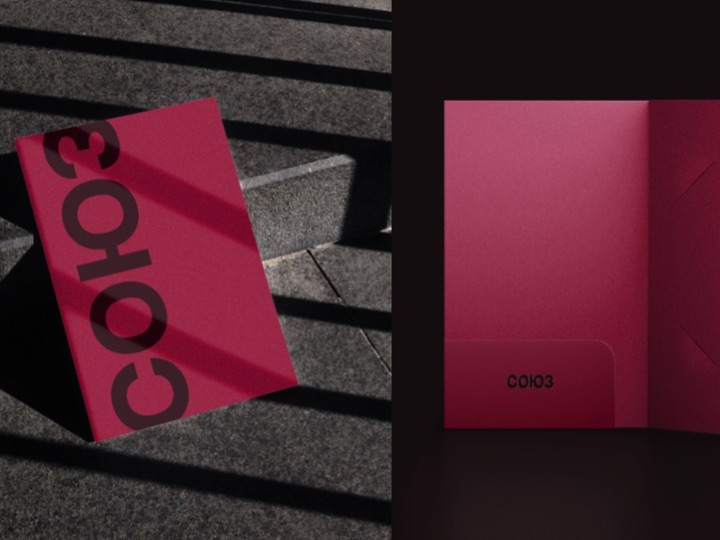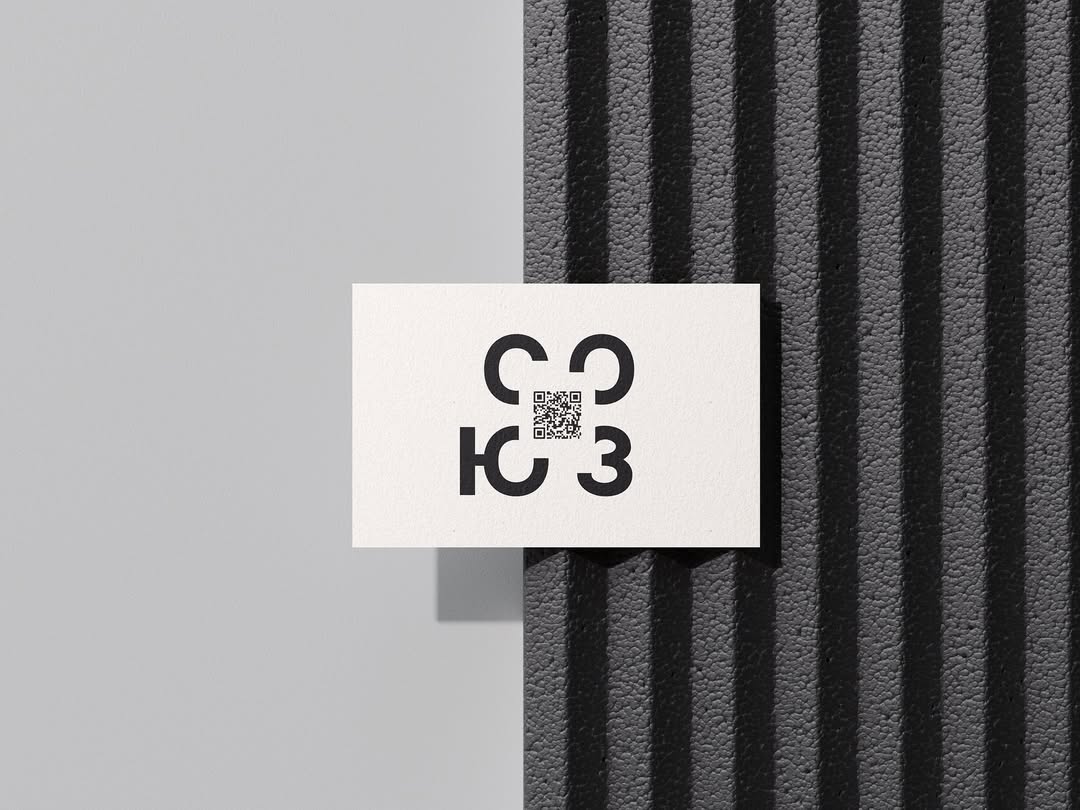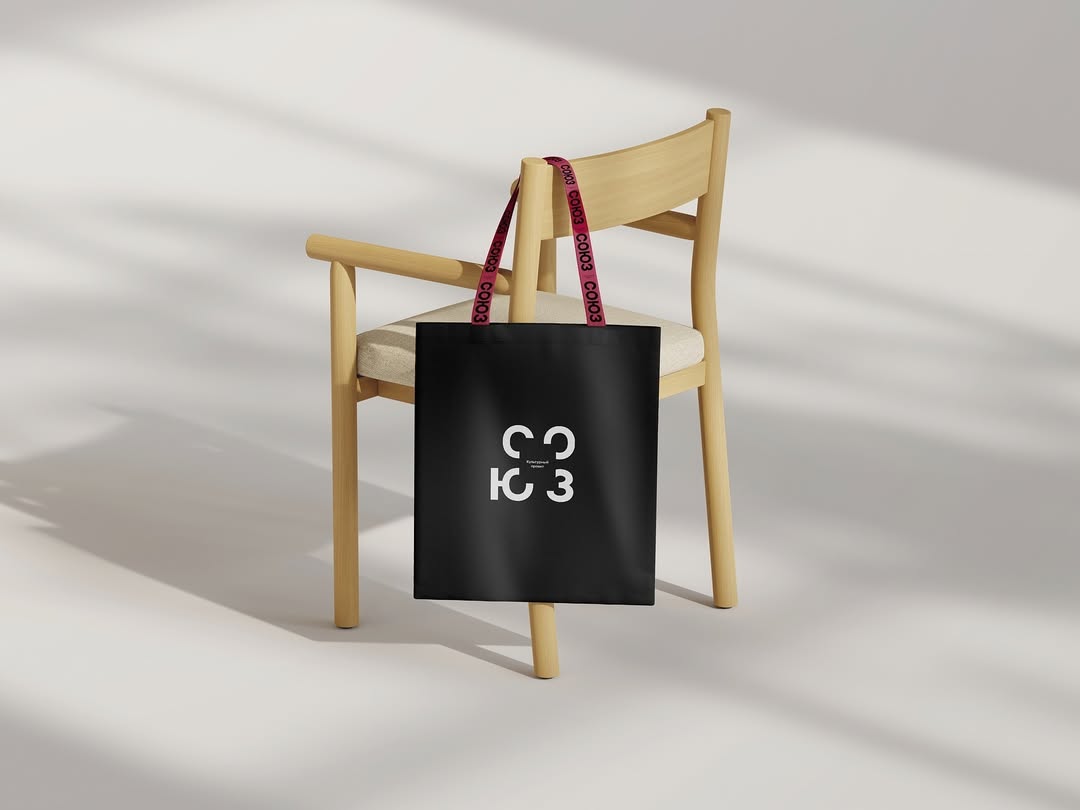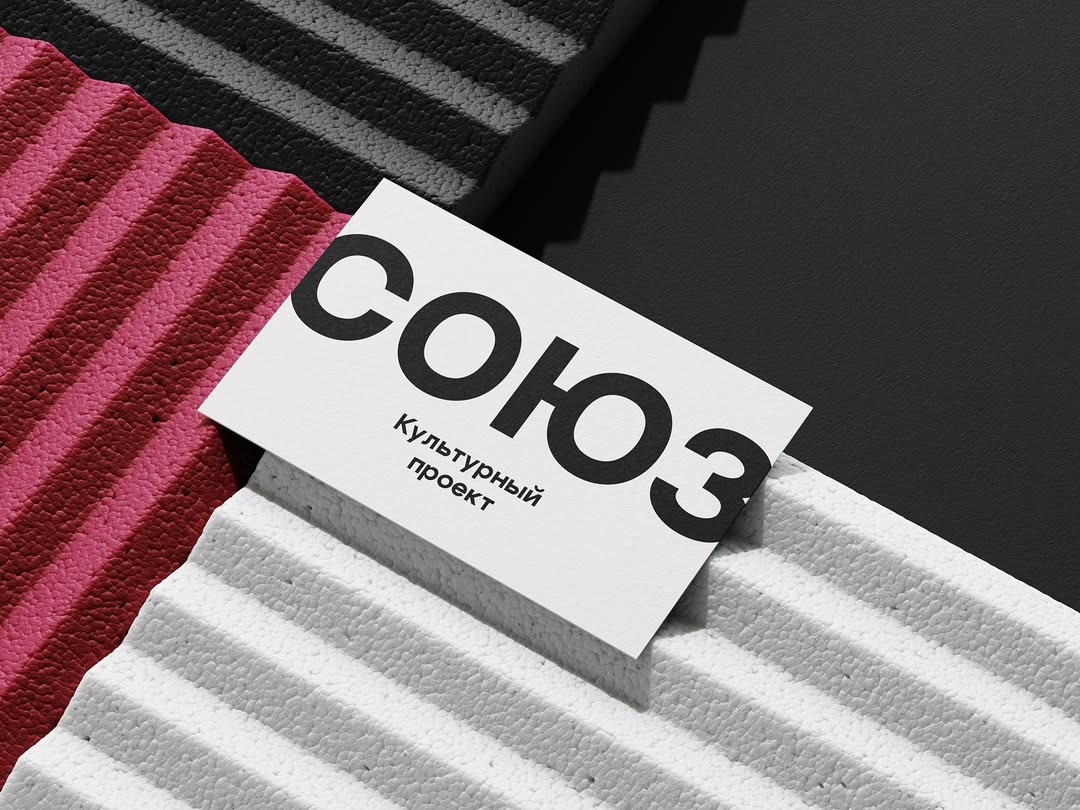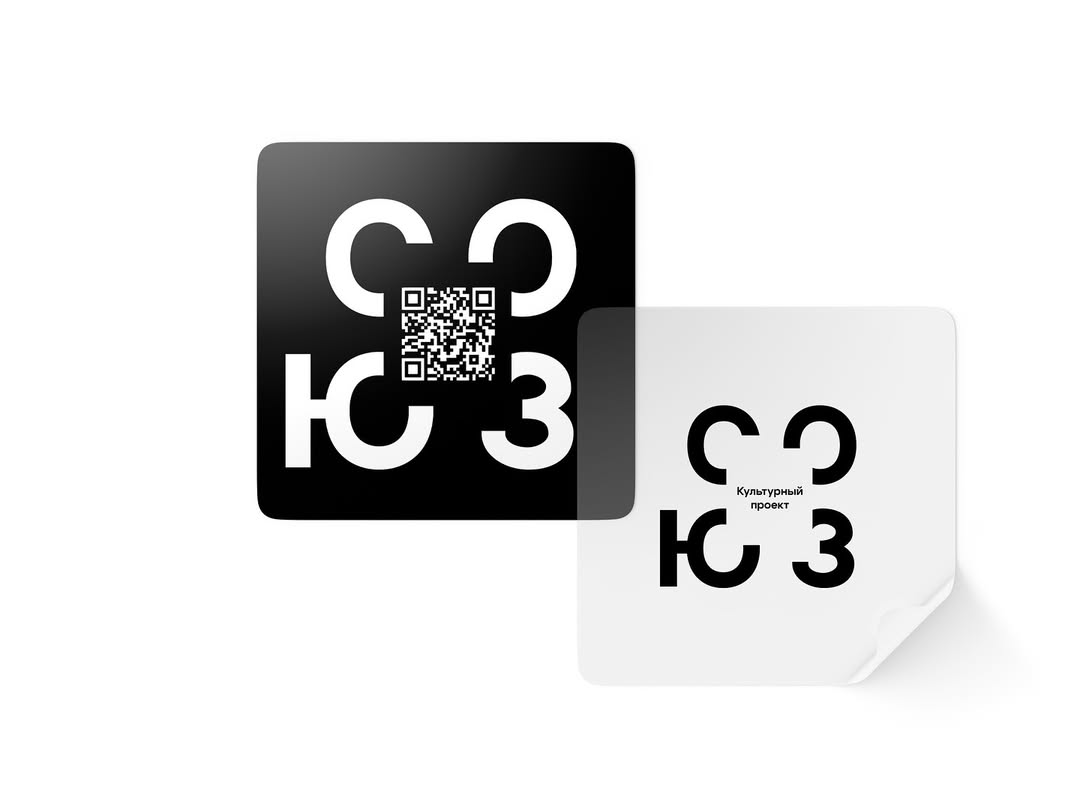
Cultural project "SOUZ"
Our agency developed a visual identity for the Cultural Project "SOUZ", aimed at regularly presenting the work of artists in the spaces of museums, large foundations with the involvement of independent curators. We explored different approaches to the form and symbolism of the logo to emphasize the philosophy of the brand - from clean geometric lines to bold and eclectic solutions, referring to the avant-garde and classics.